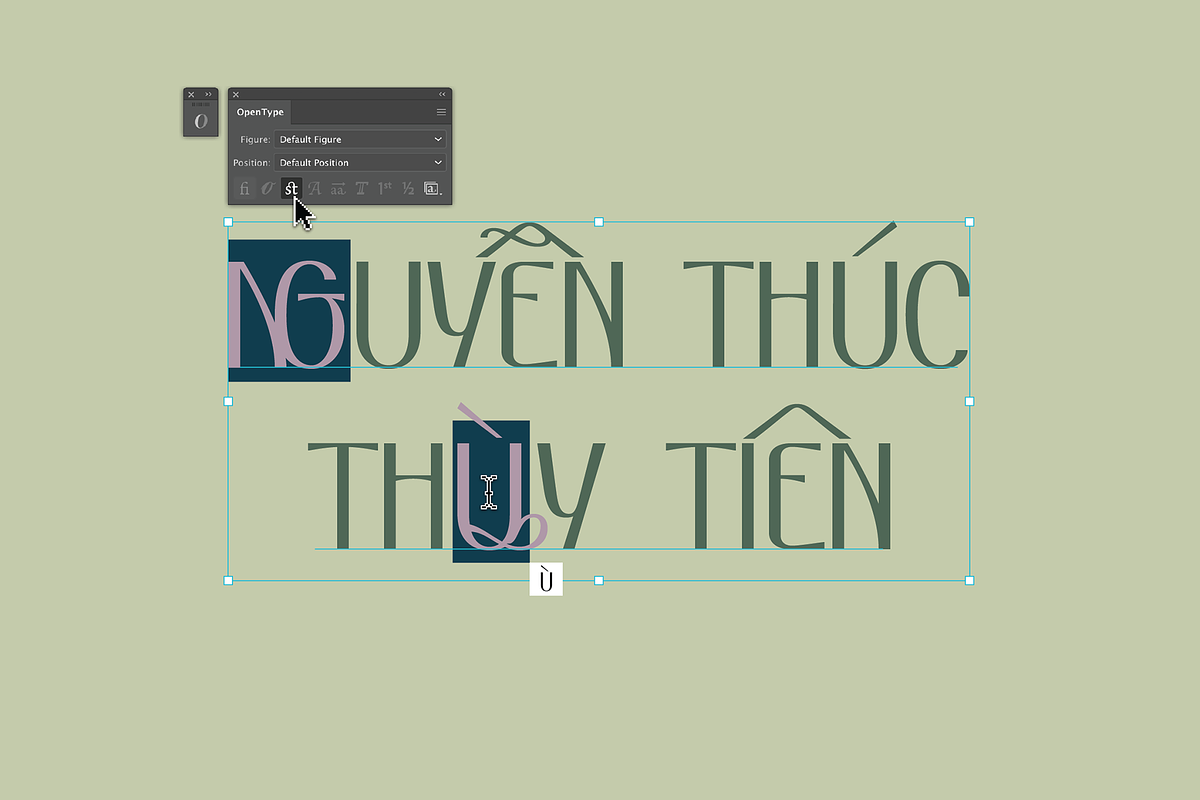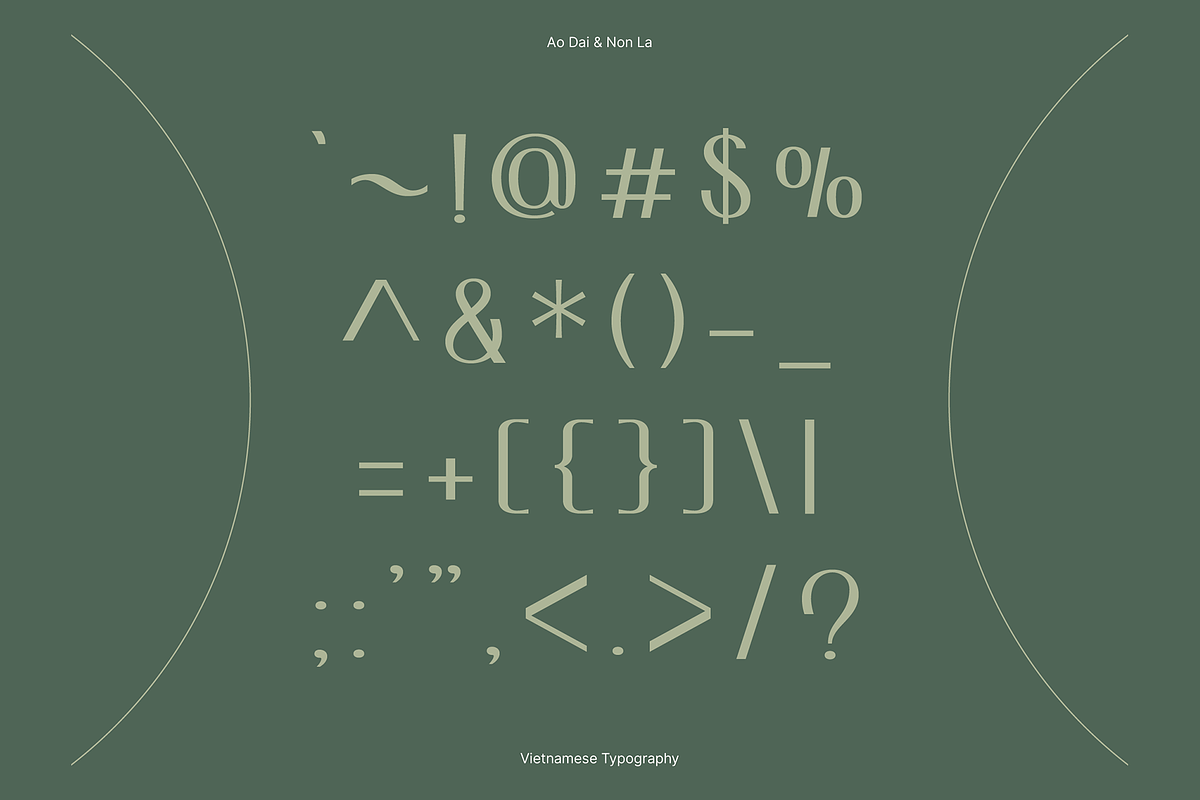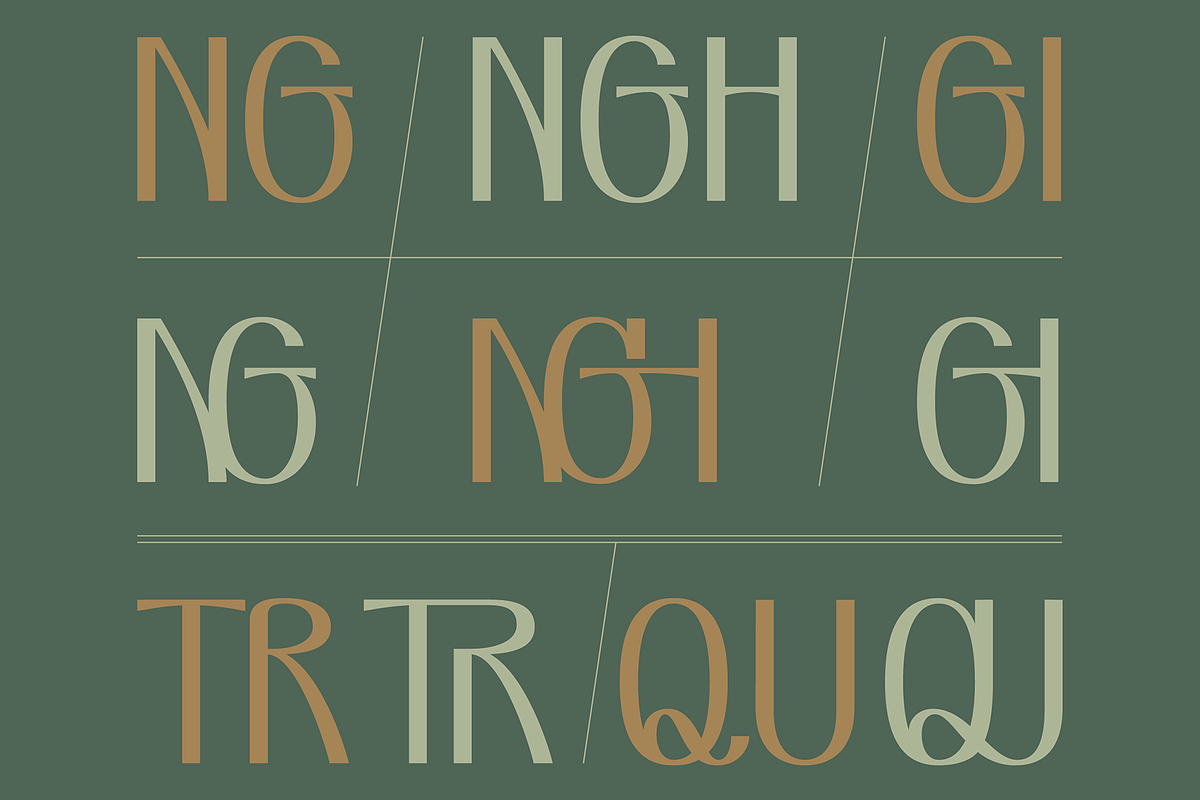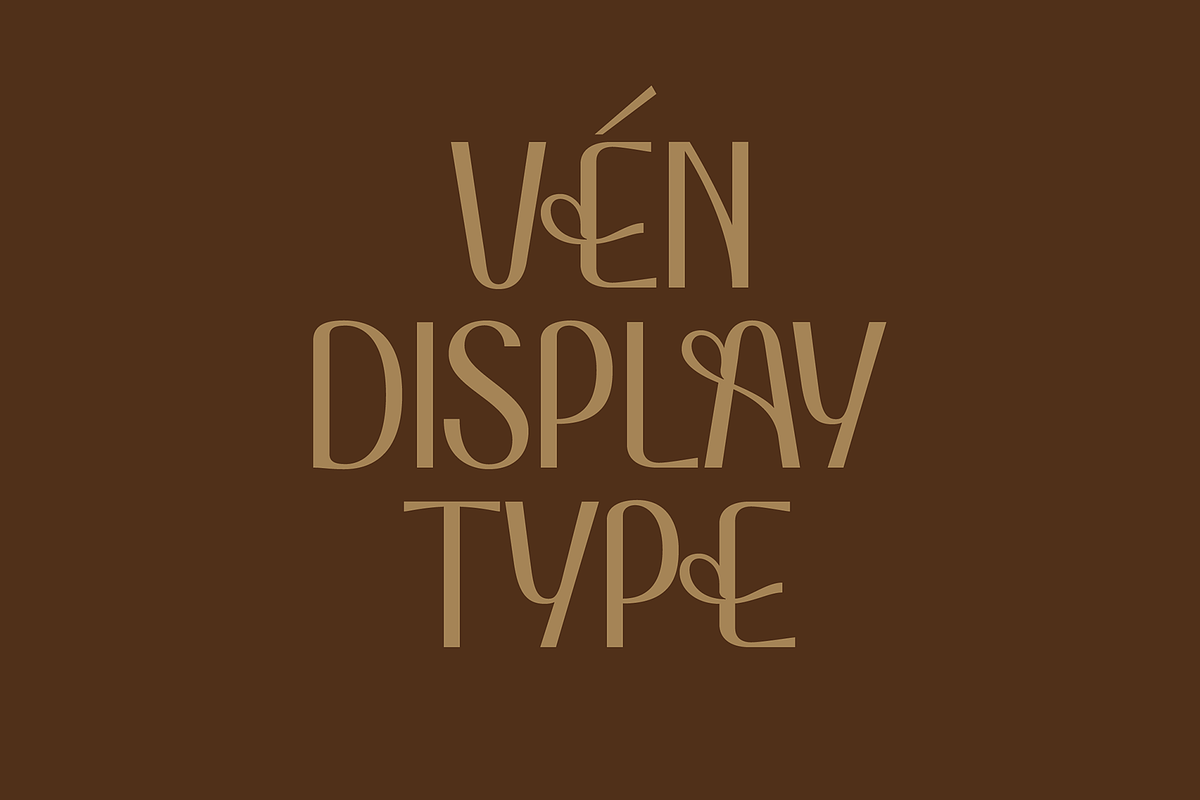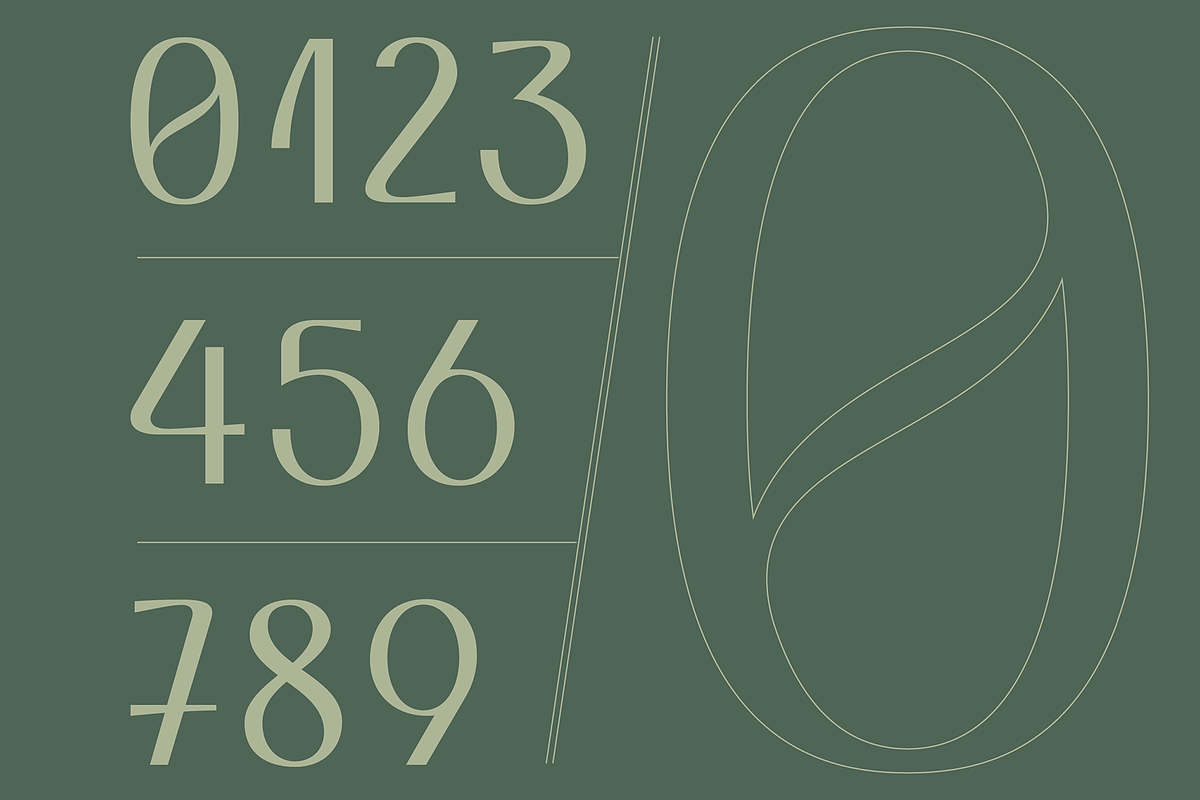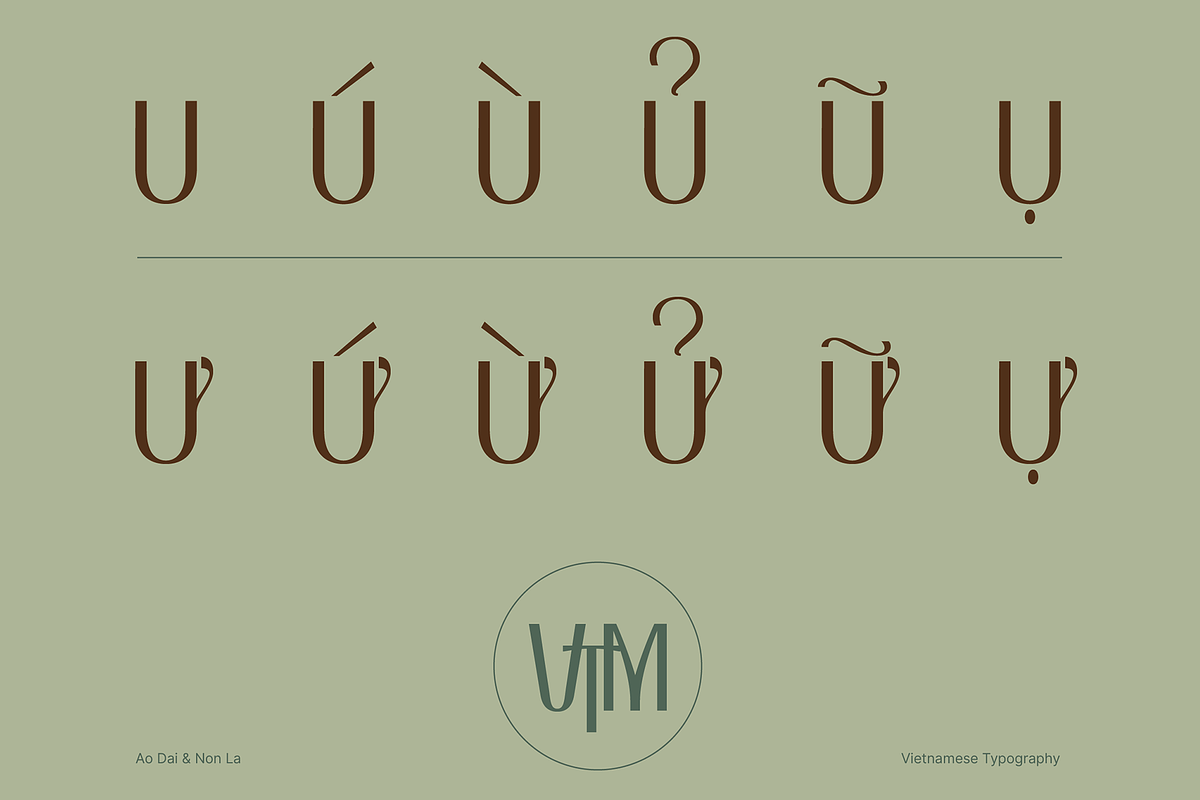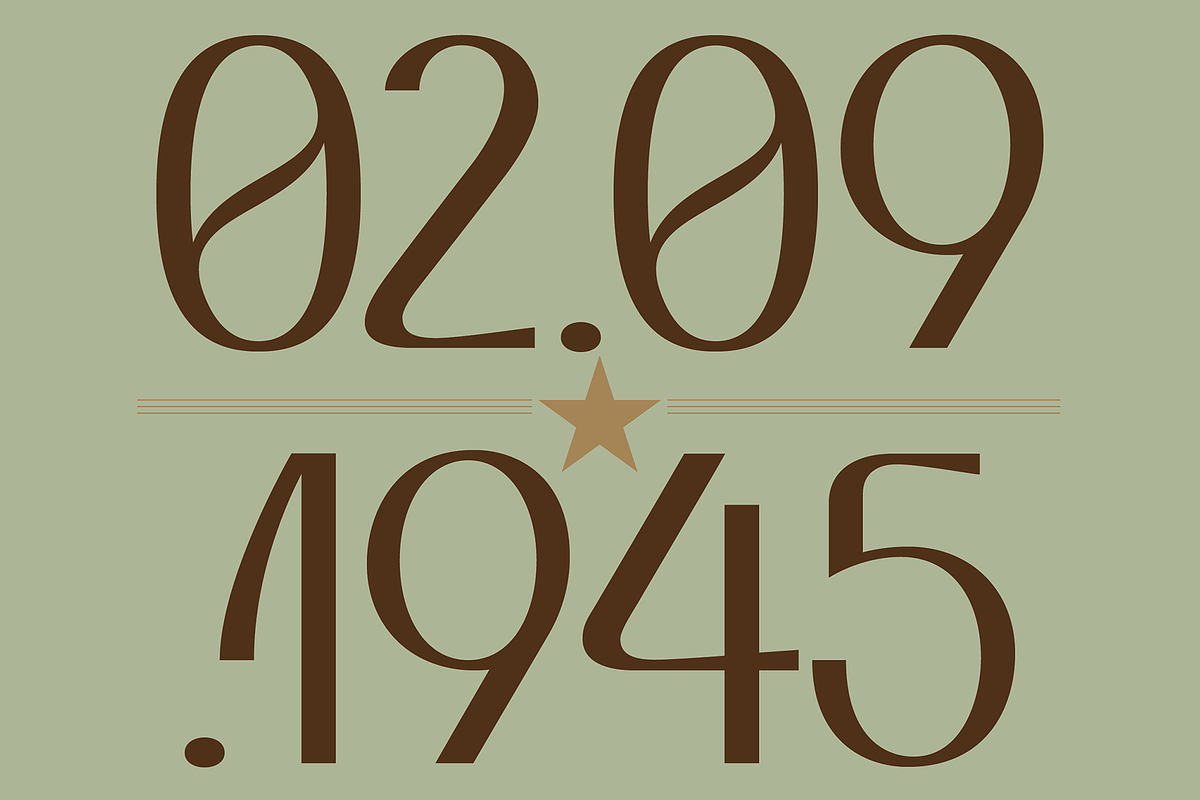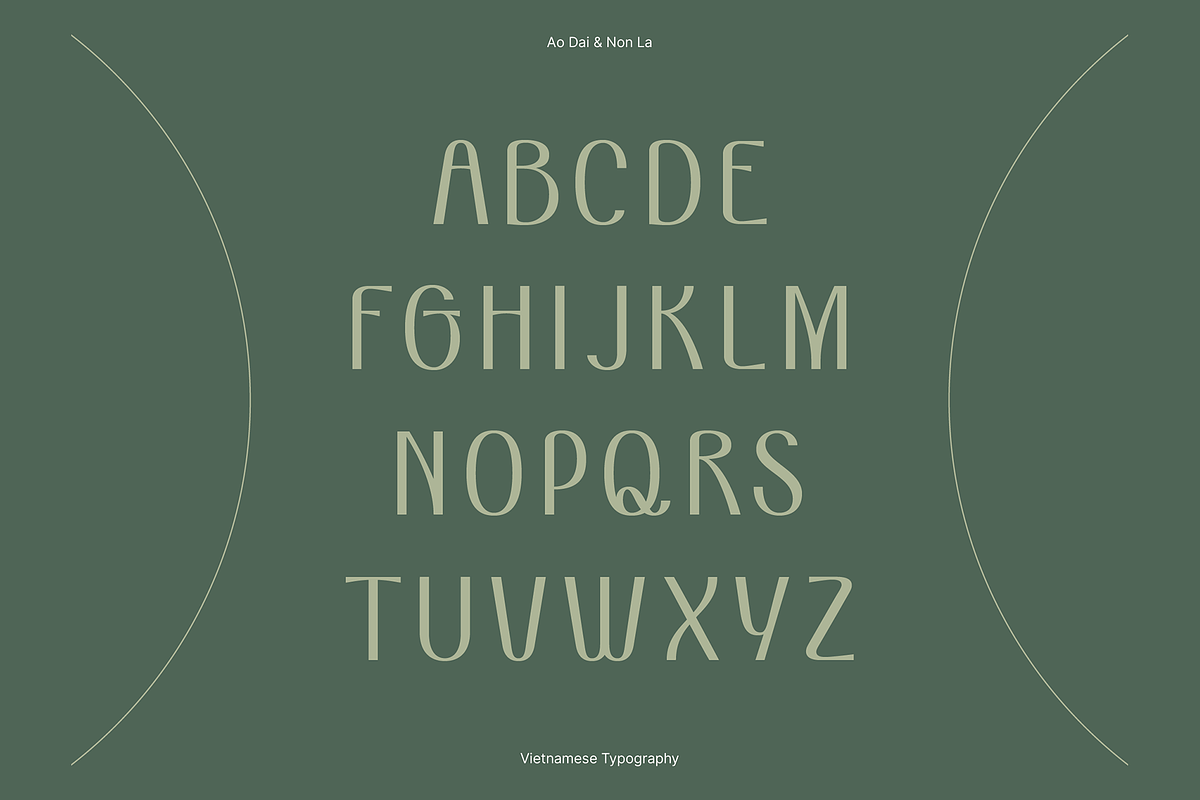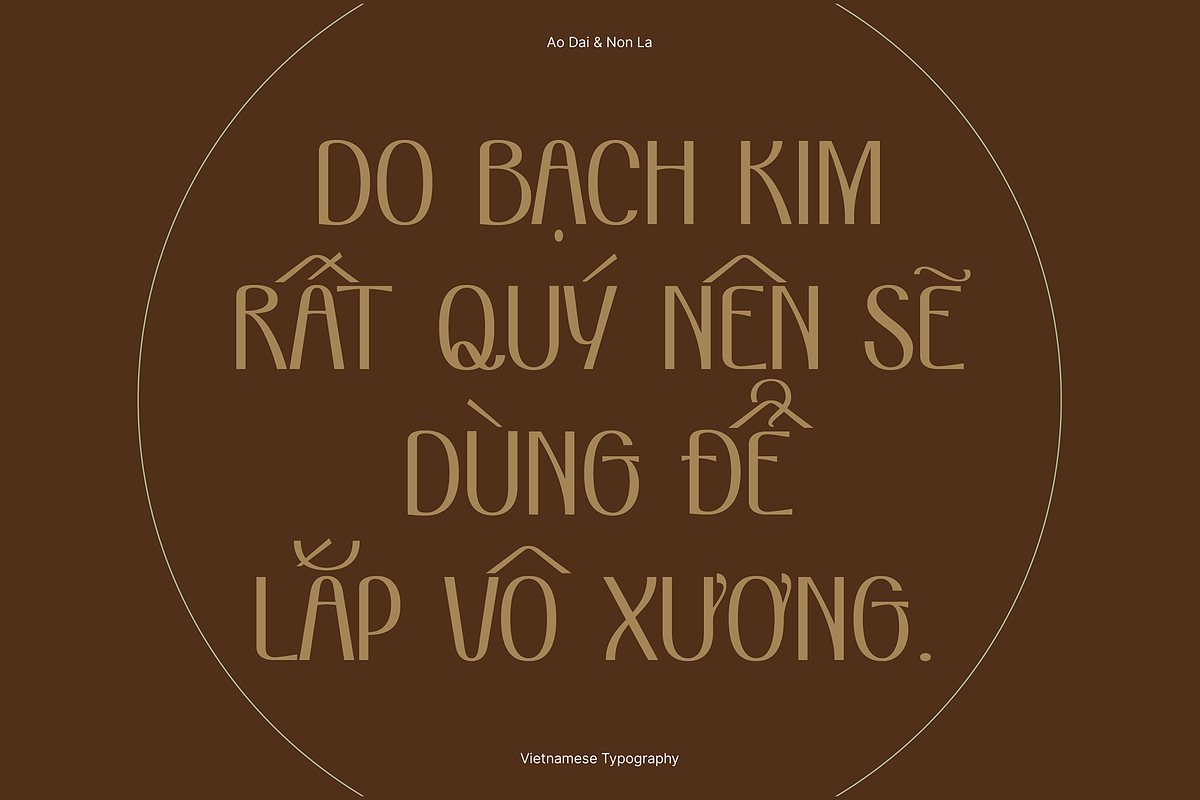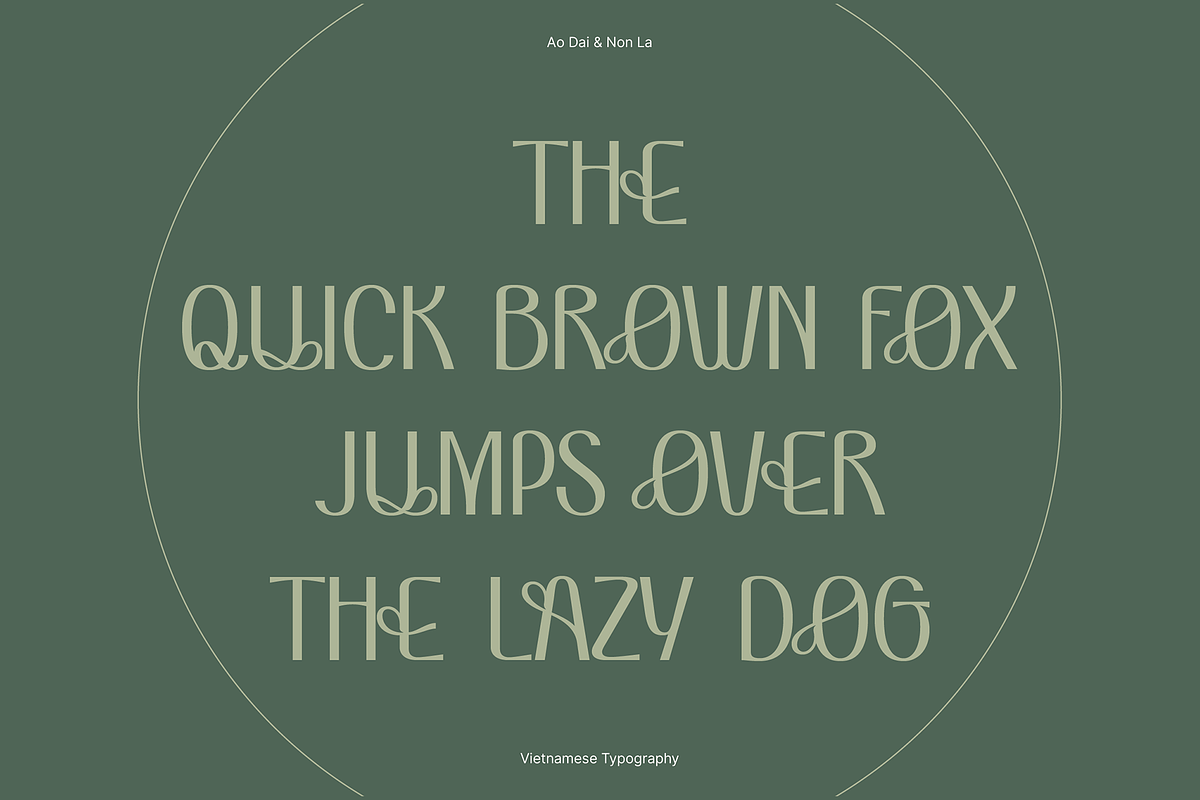
VEN - Display Typeface
Vietnamese Ao Dai, Vietnamese Conical Hat & Vietnamese Language.
Inspired by the curves of the Vietnamese Ao Dai and the Vietnamese Conical Hat, the Ven typeface was created to represent the beauty of Vietnamese women, graceful yet mysterious, feminine yet thorny. The tone marks in Vietnamese are combined with representations of conical hats, and the letter shape is based on the gracefulness of the ao dai.